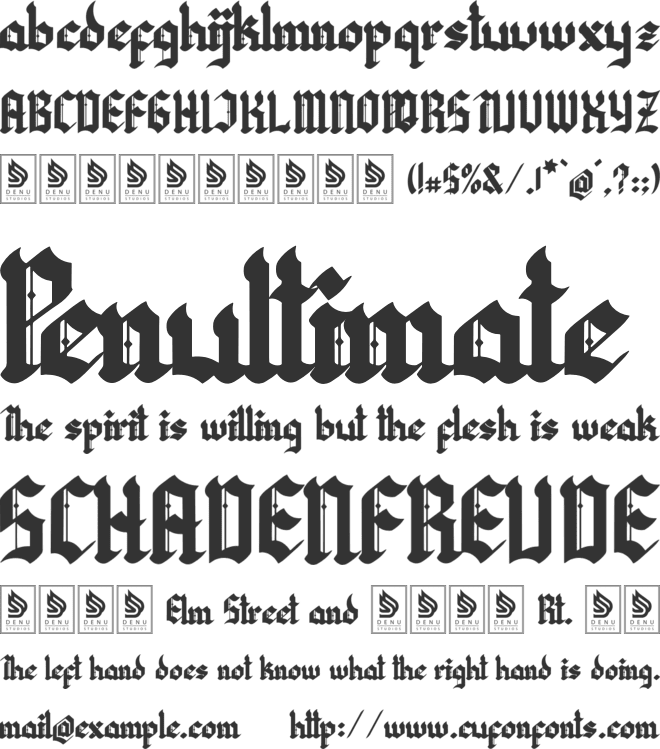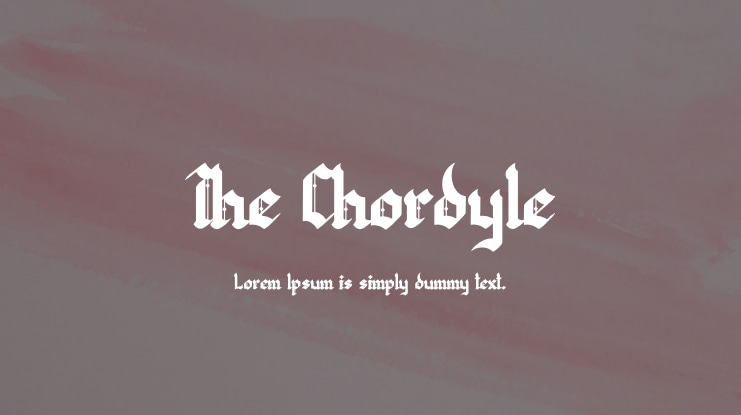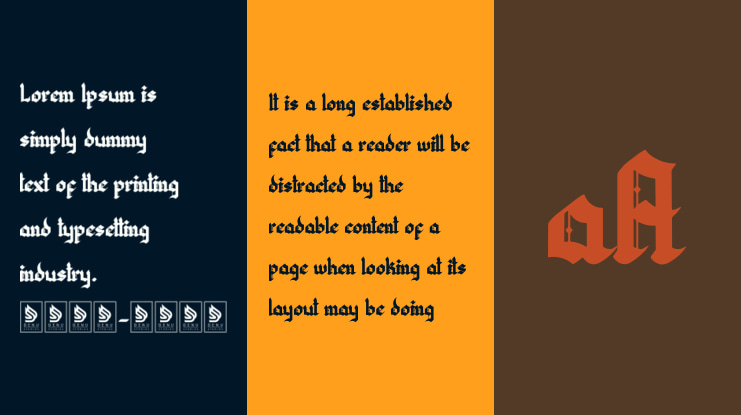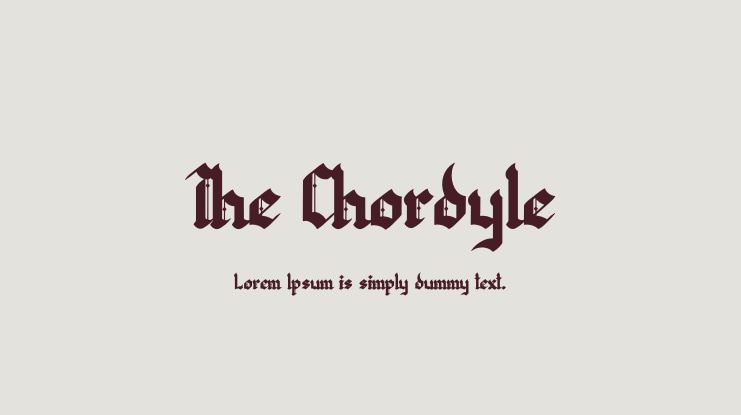
The Chordyle Font
The Chordyle | Blackletter Font is suitable for various projects such as:
• Logos
• Branding projects
• Homeware designs
• Product packaging
• Mugs
• Quotes
• Posters
• Shopping bags
• T-shirts
• Book covers
• Name cards
• Invitation cards
• Greeting cards
• Labels
• Photography
• Watermarks
• Special events
• And all your other lovely projects that need a Blackletter Font taste